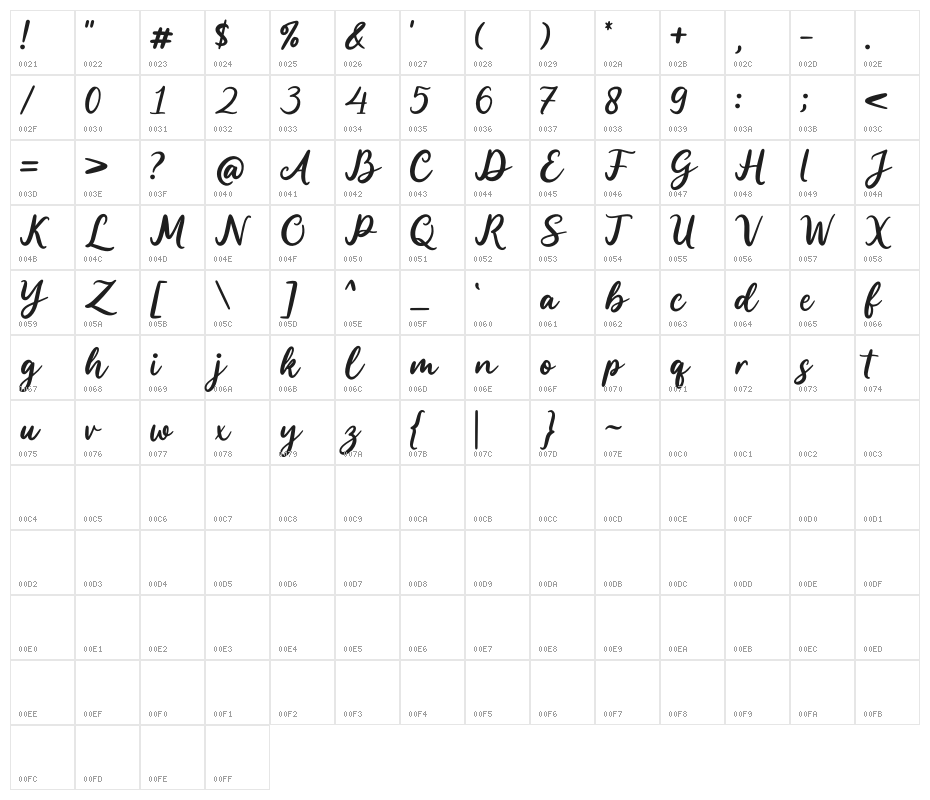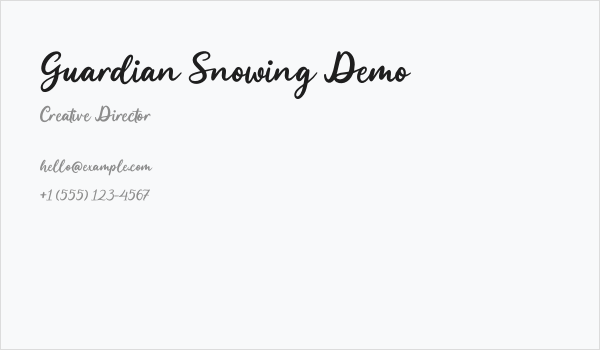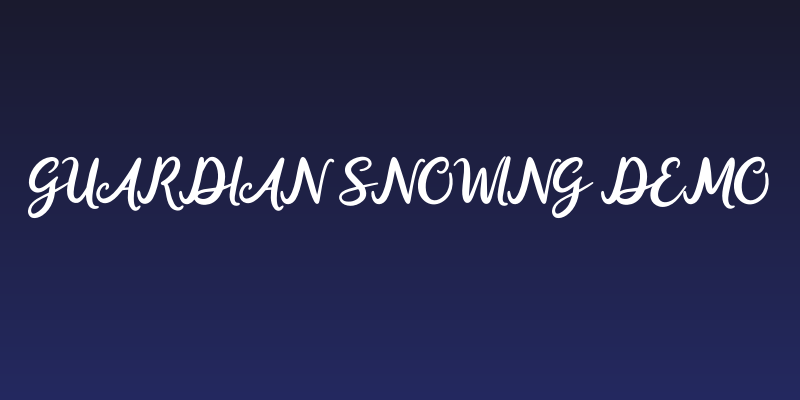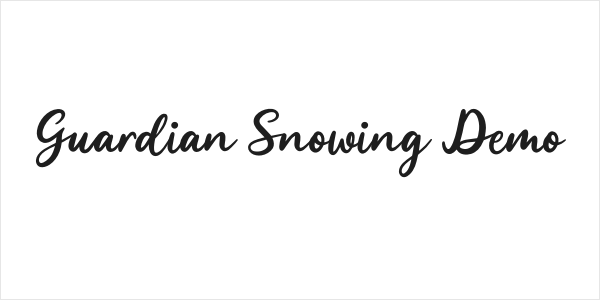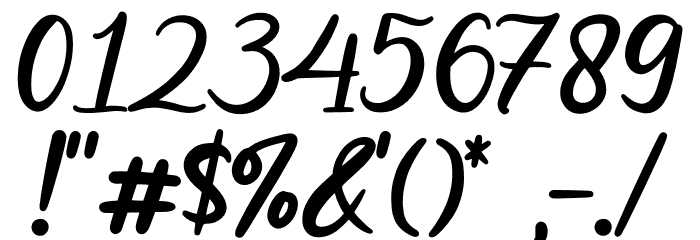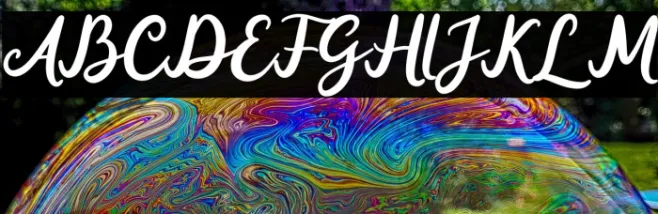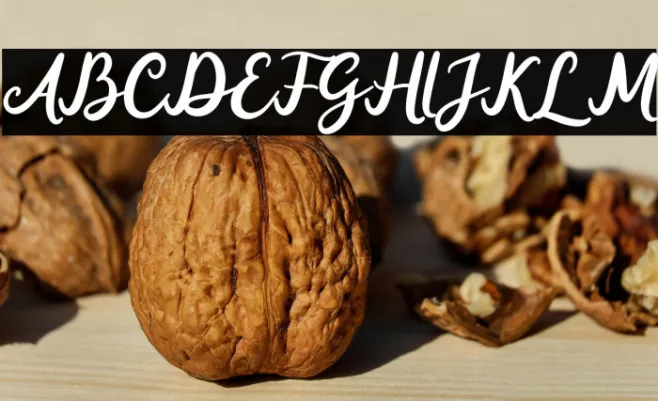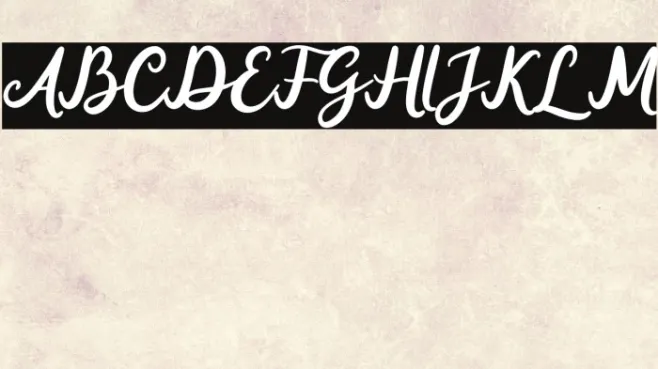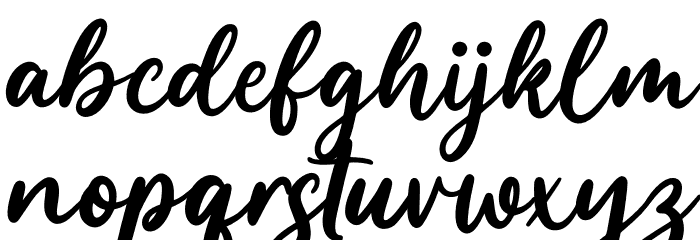
Guardian Snowing Demo Font
Guardian Snowing Demo Description
This font features a lively and dynamic script style, characterized by its fluid and connected letterforms. The uppercase letters exhibit a playful and elegant flair, with smooth curves and loops that create a sense of movement. The lowercase letters maintain a consistent flow, enhancing readability while retaining a stylish appearance. Numbers and special characters are designed to match the overall aesthetic, ensuring a cohesive look across all text. The font's bold strokes and medium contrast make it stand out, ideal for capturing attention in various design contexts.